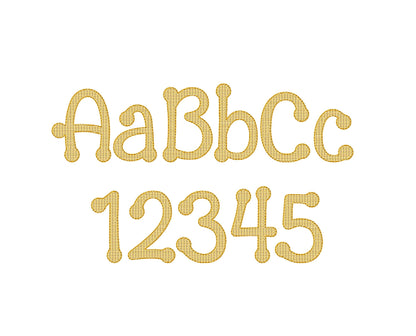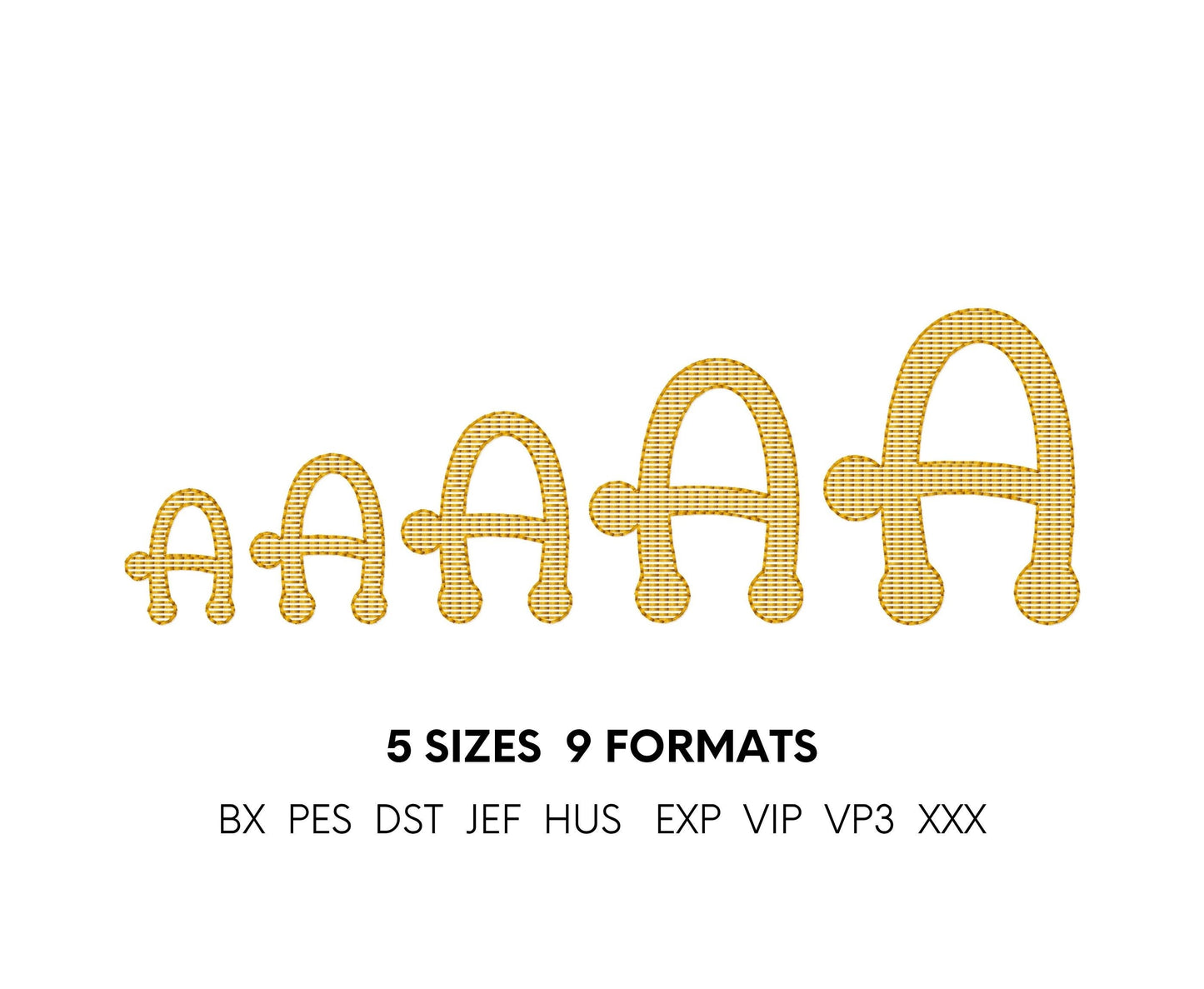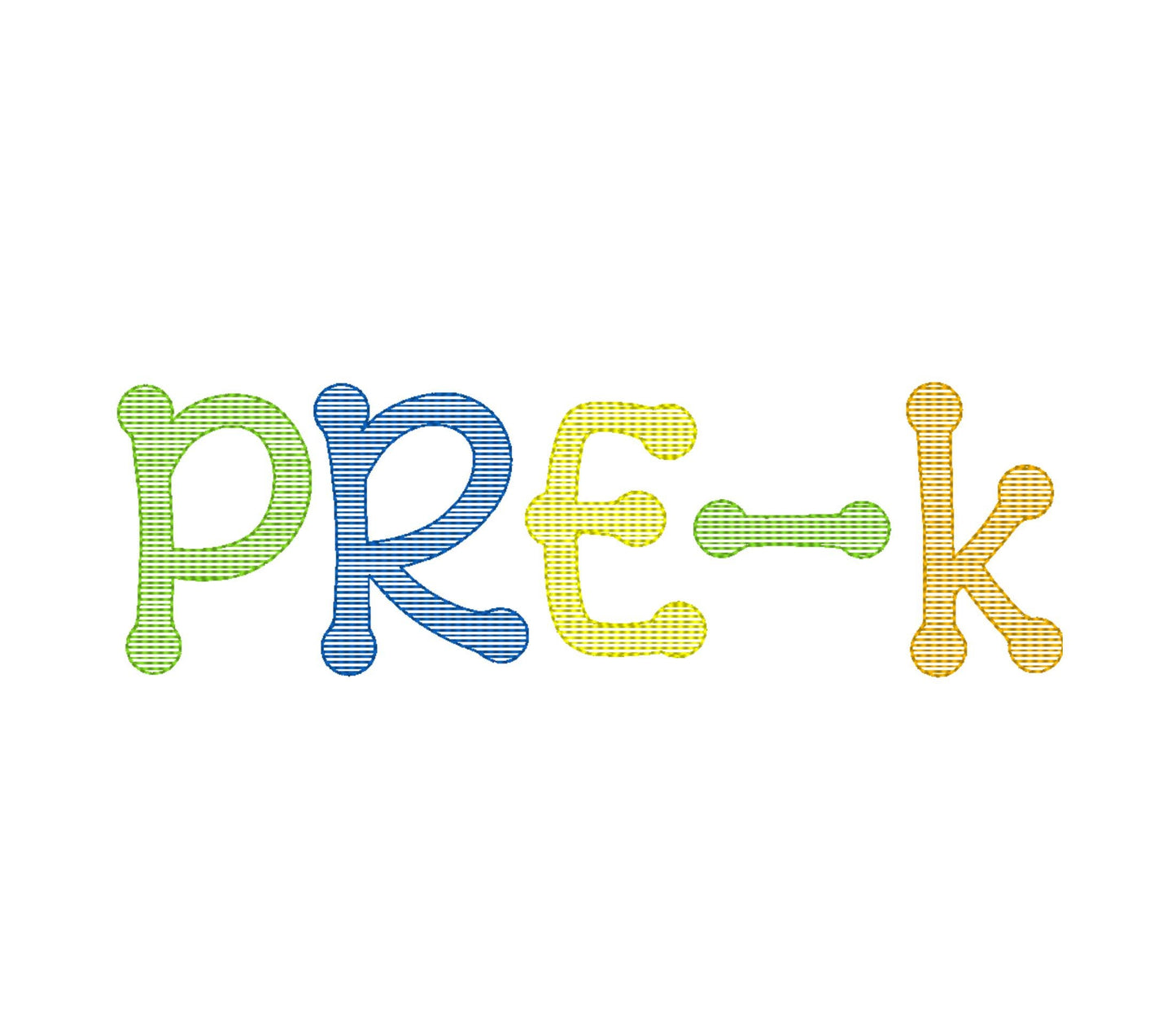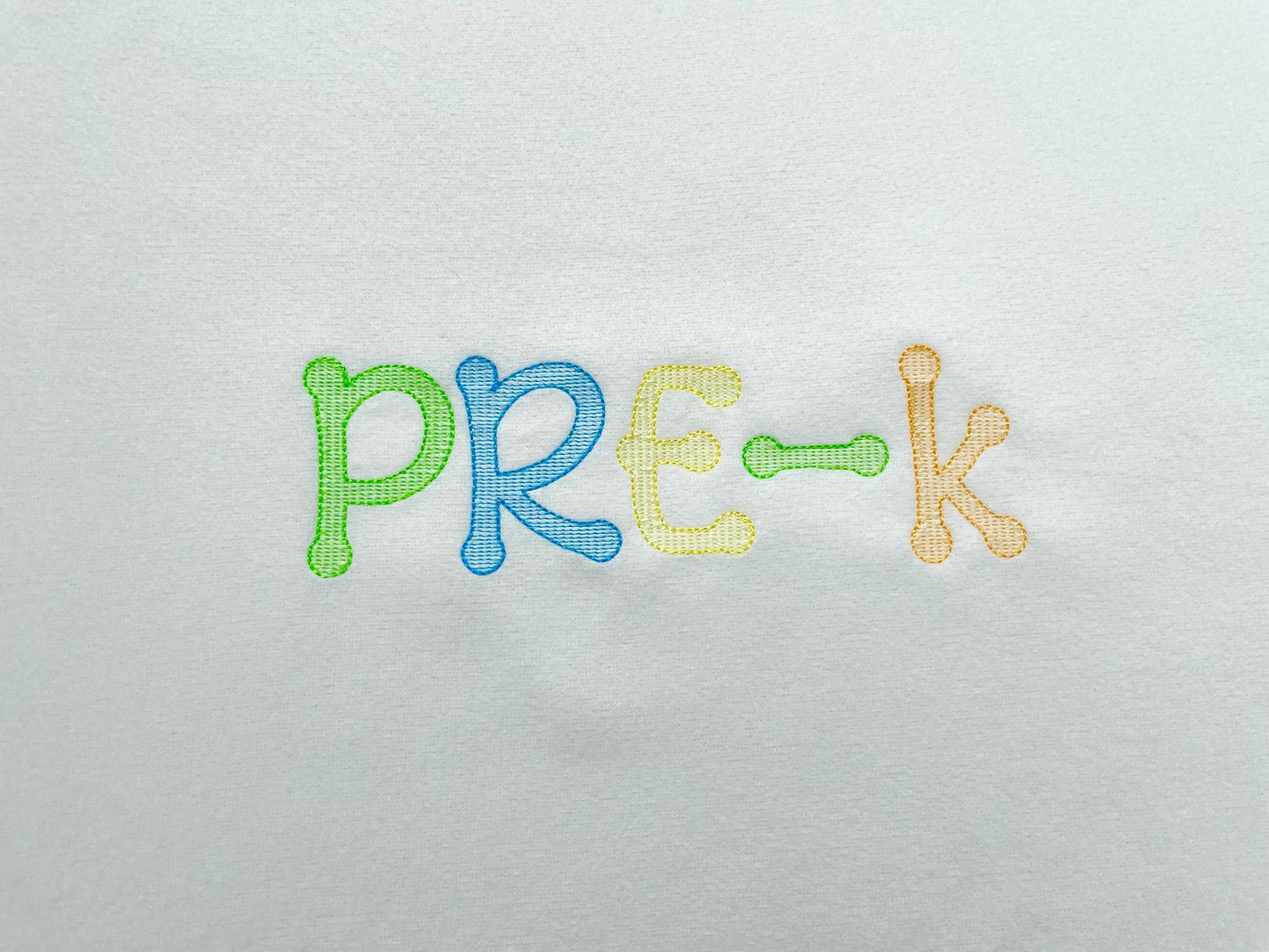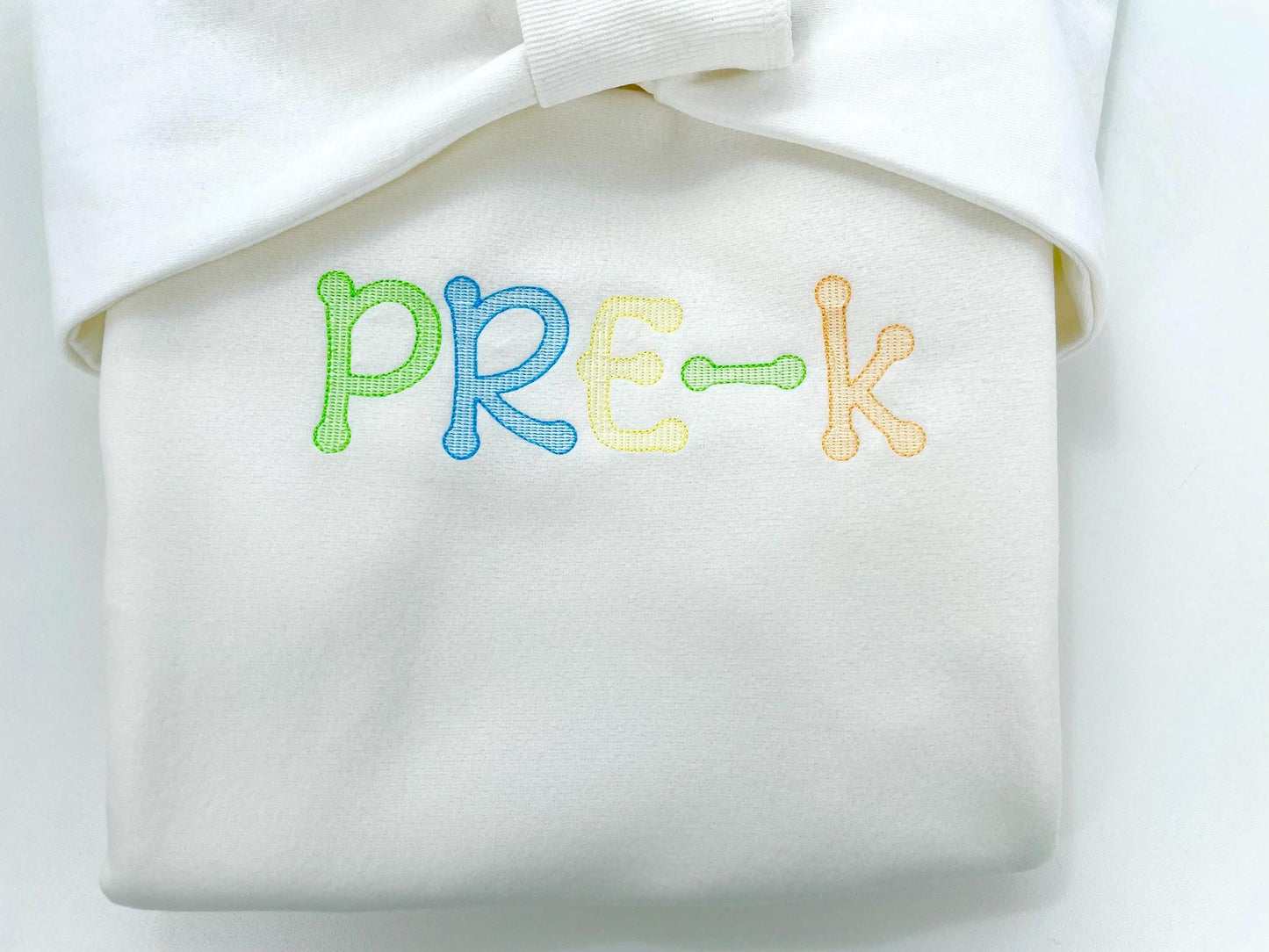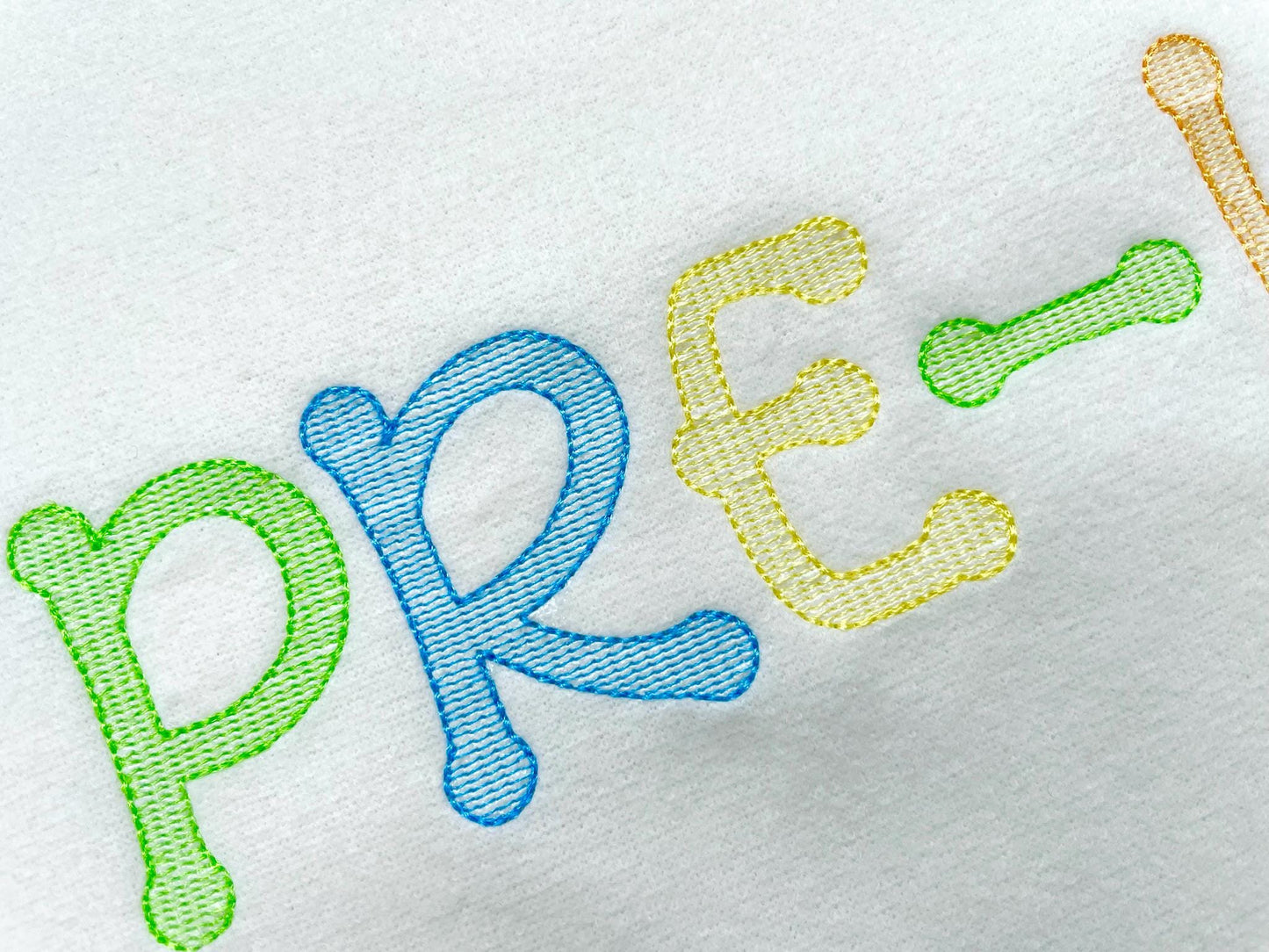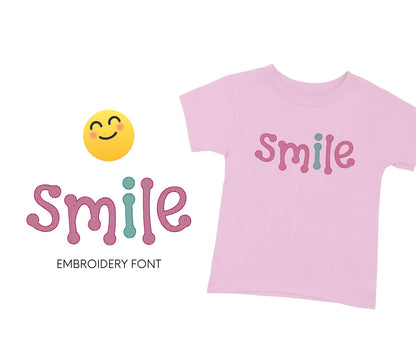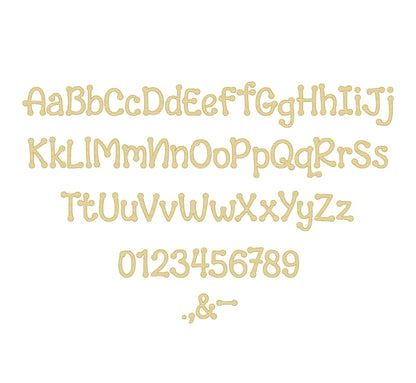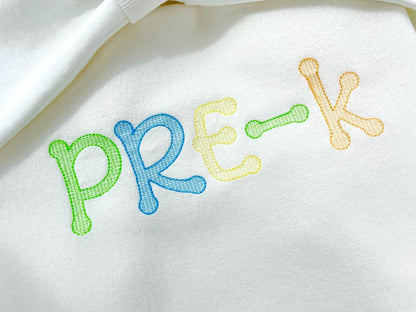
Quick Light Stitch Fill Font Dot to Dot
Uppercase and lowercase letters, numbers 0 to 9 and punctuation, in five sizes: 1, 1.4, 1.7, 2.2 and 2.6 inches. The low-density fill lets the fabric show through.
- Dot-to-dot kindergarten light fill font
- Uppercase and lowercase letters, numbers 0-9, punctuation
- 5 sizes, 1 to 2.6 in